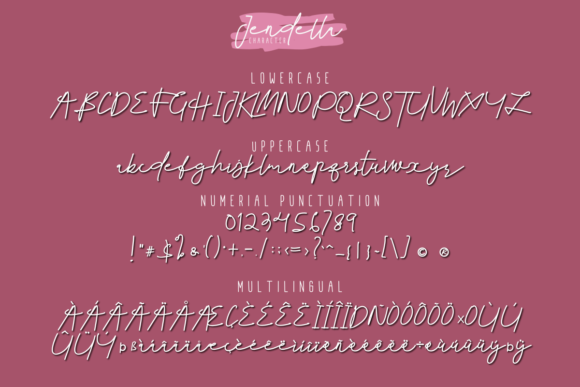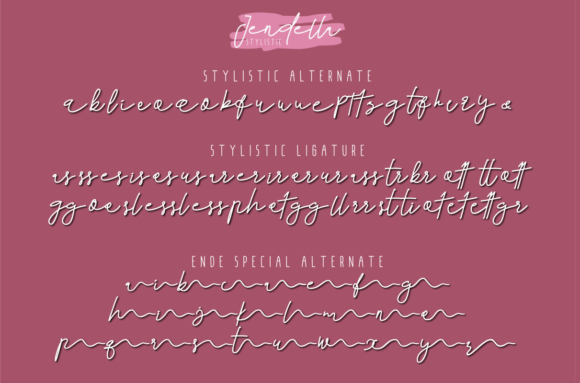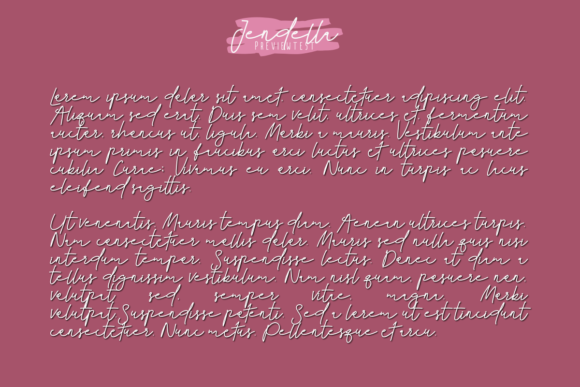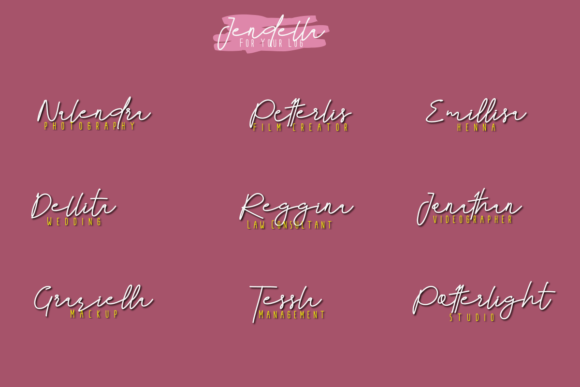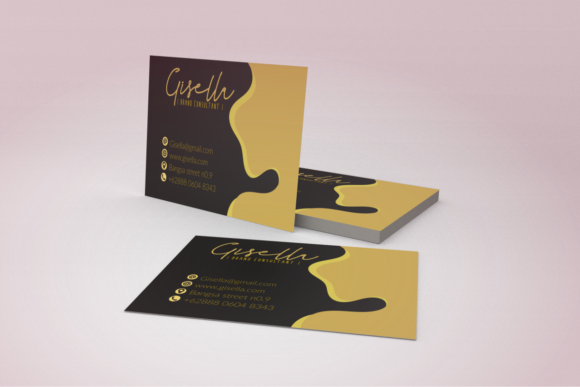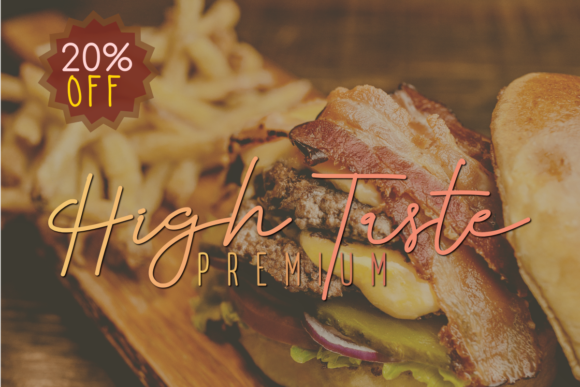
Introduction to Jendella Font
Have you ever found yourself staring at a blank canvas, struggling to bring your creative vision to life? We’ve all been there. But what if you had the perfect design resource to spark inspiration and elevate your project? Enter the Jendella Font, a cheerful and vibrant script that radiates authenticity and modern elegance.
As a designer, you know the value of high-quality design resources that can take your creative project to the next level. With its transparent background and high-quality design, the Jendella Font is a versatile and essential tool for any creative endeavor. Whether you’re working on a logo, branding, or a free download project, this font is sure to add a touch of sophistication and personality to your design.
Key Features of Jendella Font
- Unique, hand-drawn style with a transparent background, allowing for easy customization and layering in design projects.
- Designed to be versatile, with a wide range of applications including logos, branding, packaging, and digital design.
- Includes a comprehensive character set, including uppercase and lowercase letters, numerals, and punctuation marks.
- Perfect for designers and artists looking for a distinctive, high-quality font to elevate their creative projects.
Honest Review: Jendella Font
I recently had the chance to work with the Jendella Font, and I must say it’s a beautiful addition to any design project. This free download is perfect for designers looking for a high-quality font to elevate their creative work.
Here are some things that work well with the Jendella Font:
- ✨ Elegant and modern design aesthetic, making it perfect for contemporary projects
- ✨ High-quality rendering, even on smaller font sizes
- ✨ Highly versatile, suitable for use in a variety of design contexts
- ⚠️ Some users may find the font to be a bit too ornate for certain design applications
Overall, I’m impressed with the Jendella Font. It’s a valuable design resource that can help take your creative project to the next level. Just be aware of the limitations mentioned above, and you’ll be well on your way to creating stunning designs with this high-quality font.
Tips for Getting the Most Out of Jendella Font
To get the most out of Jendella Font, use it for high-quality design projects. Experiment with different font sizes and styles to create visually appealing designs. Consider using Jendella Font for free download and customizing it to fit your creative project.
Jendella Font is a versatile design resource that can be used for various creative projects, including logos, business cards, and social media graphics. Its high-quality design and transparent background make it an ideal choice for designers looking for a unique and stylish font.
Alternatives to Jendella Font
Lato is a high-quality sans-serif font that works well for creative projects requiring a clean and modern look. It’s available for free download and offers a transparent background, making it ideal for backgrounds and overlays. Lato is a versatile font that can be used for various design purposes, from body text to headings. Compared to Jendella Font, Lato has a more minimalist and sleek design, making it suitable for contemporary designs.
Montserrat is a geometric sans-serif font that’s perfect for creative projects needing a strong and urban feel. It’s available for free download and offers a high-quality design that’s ideal for titles, headings, and body text. Montserrat has a more condensed design compared to Jendella Font, making it suitable for designs requiring a compact and modern look.